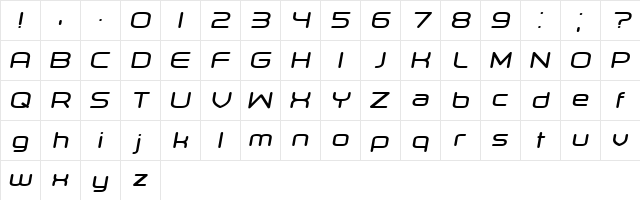
Orenburg Bold Italic
Design Context for Orenburg Typeface
Orenburg is a composed and adaptable typeface that performs quietly and consistently across a wide range of design contexts. Its italic angle brings a sense of urgency and motion to the letterforms. Its bold stroke weight gives it real presence on the page.